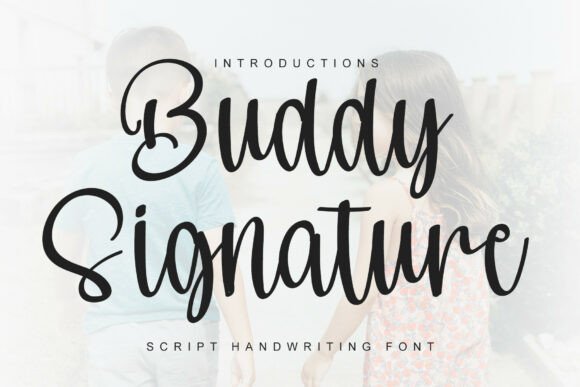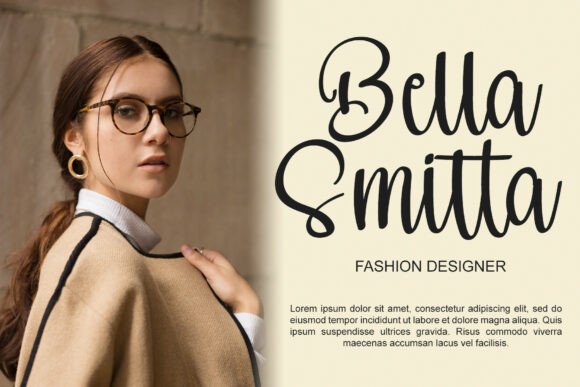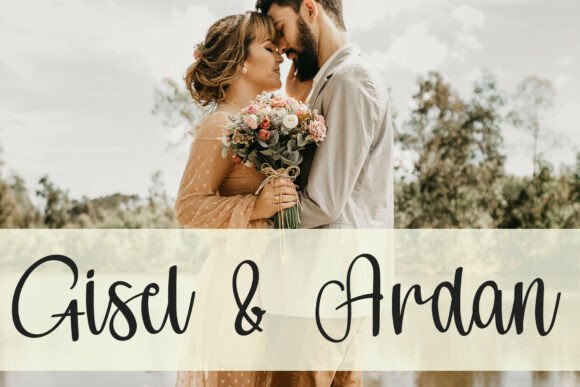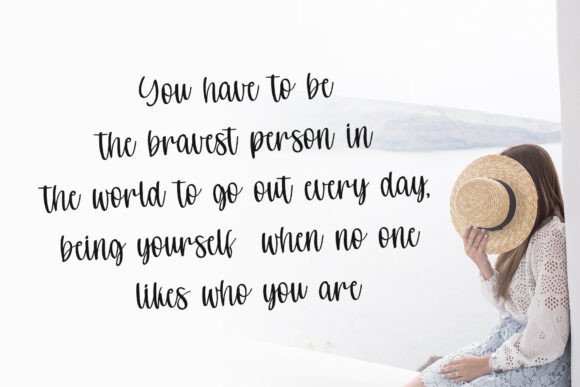
Buddy Signature Font
About the Buddy Signature Font
Meet Buddy Signature Font, a stunning font that brings a touch of elegance and professionalism to any design. Buddy Signature is a font that exudes class, combining the beauty of script handwriting with a bold and timeless vintage touch. With its fluid strokes, graceful curves, and dynamic flow, this font is perfect for creating a sophisticated yet powerful impression. Whether you need a stylish signature, branding design, or nostalgic vintage aesthetics, Realistic Vintage delivers elegance and uniqueness effortlessly.
Buddy Signature thrives in applications requiring a strong, yet refined presence. It excels in headlines, logos, short taglines, and packaging design where its bold strokes command attention. Consider it for projects needing a touch of vintage charm and sophisticated elegance; think boutique brands, high-end spirits, or curated lifestyle products. Avoid using it for body text or lengthy paragraphs; its decorative nature compromises readability at smaller sizes.
Pairing Buddy Signature with a clean sans-serif like Montserrat or a geometric sans-serif such as Futura creates a balanced contrast. For a more traditional feel, a complementary serif like Garamond or Didot works well. Avoid pairing it with other script fonts, as this can create visual clutter and lack of hierarchy.
The font’s overall personality is confident and sophisticated, with a hint of nostalgic warmth. Its bold yet elegant strokes convey a sense of timeless quality and refined taste.
Buddy Signature Font Usage Examples
Buddy Signature Font Example